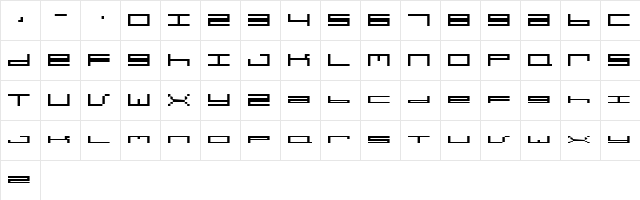
Complete hardware requiem Regula glyph index. Displaying only characters natively supported by hardware requiem Regula font.
hardware requiem is a composed and adaptable typeface that performs quietly and consistently across a wide range of design contexts.